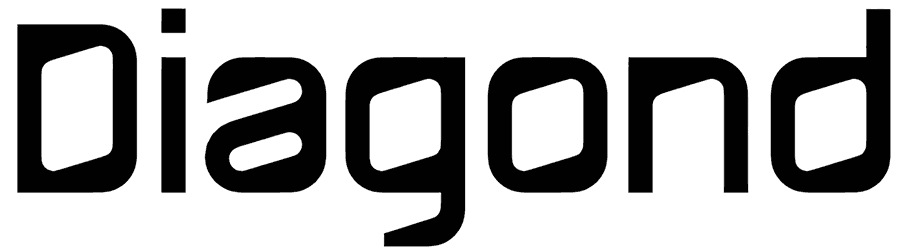
Diagond Font
Undoubtedly, having a geometric font like Diagond that all its characters are designed in two distinctive styles would be totally tempting for any graphic artist who craves to bring their own creative ideas, including logos, stickers, brochures, and magazines, to real life with a considerable amount of variety.
Sporting a uniform upward slope in the letterforms, Diagond is a contemporary decorative/display typeface with hints of the seventies and Art-Nouveau. The font contains some alternative lower-case glyphs, as well as ligatures, and East European, Turkish and Baltic languages support.